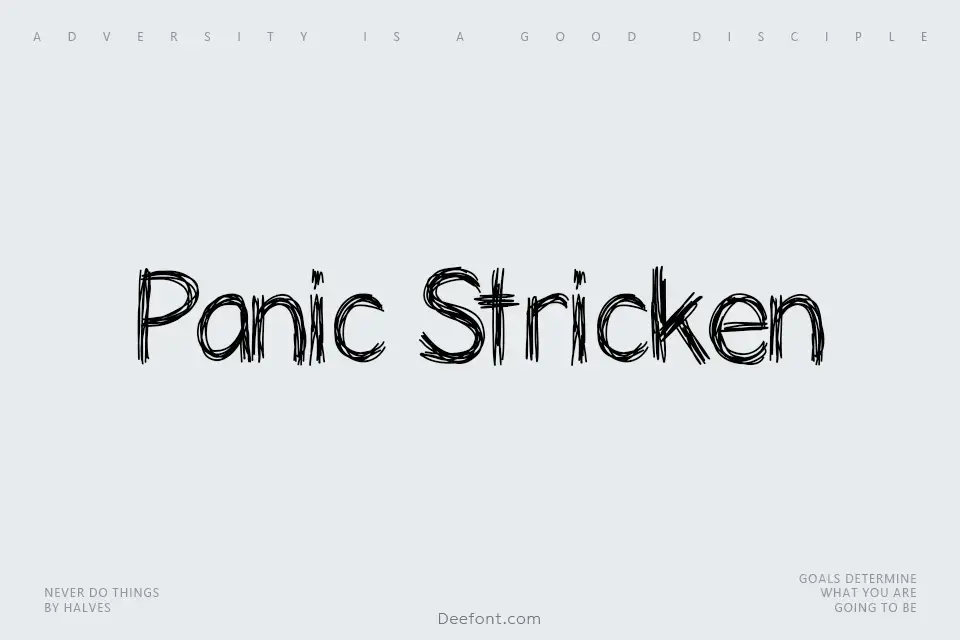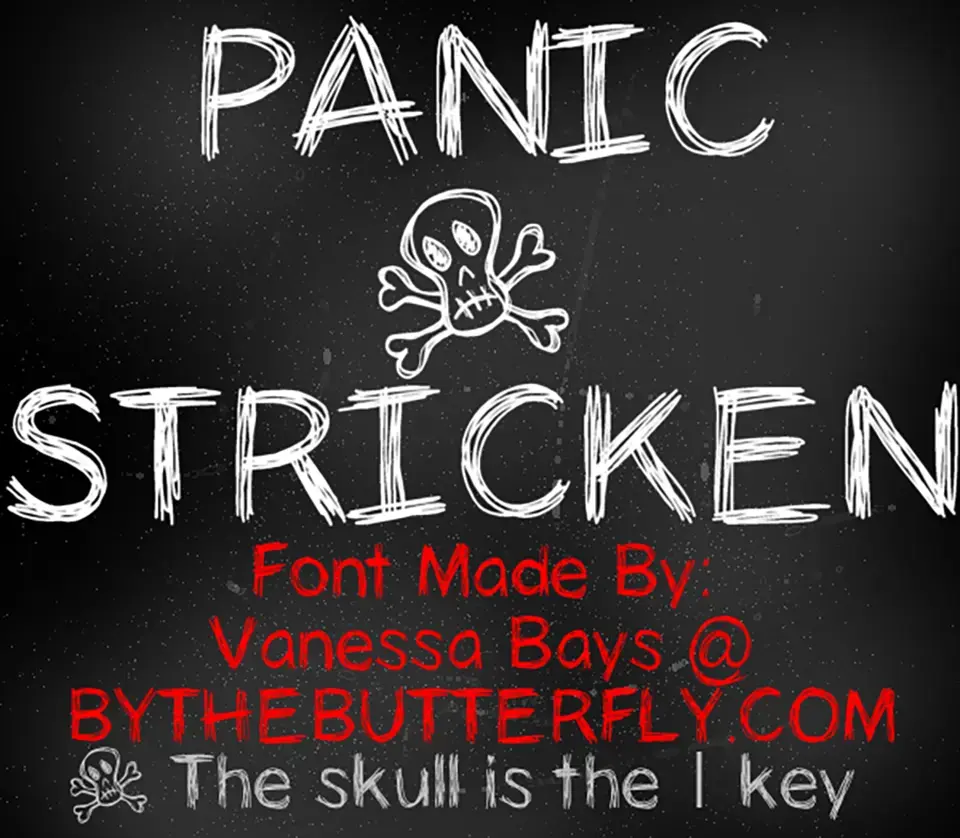
Panic Stricken Font
Panic Stricken is a jagged handwritten horror font with scratchy strokes, uneven baselines, and distressed edges that instantly create tension. Its chaotic, inked letterforms feel like they were carved in a rush, making it perfect for Halloween posters, scary movie titles, haunted house flyers, dark game logos, and thriller book covers. Use this dramatic display script for bold headlines, eerie packaging, and any design that needs an urgent, panic-filled atmosphere.